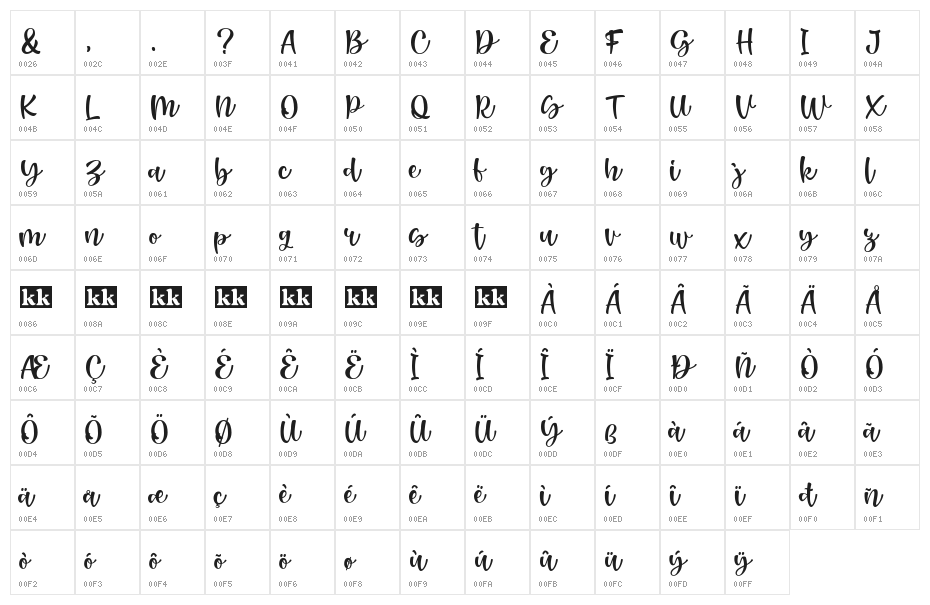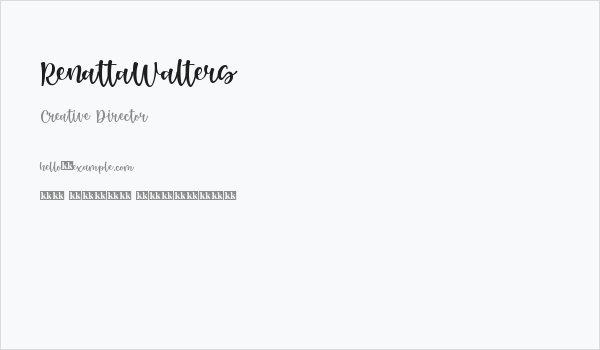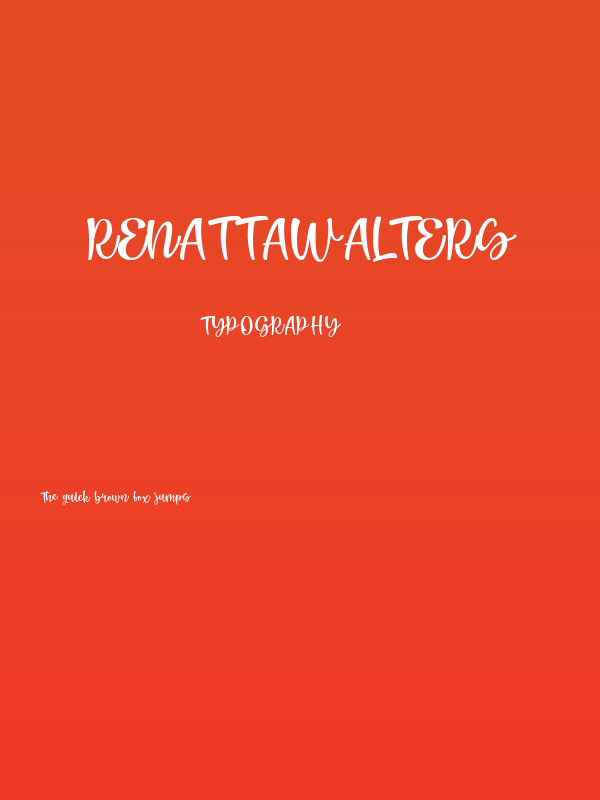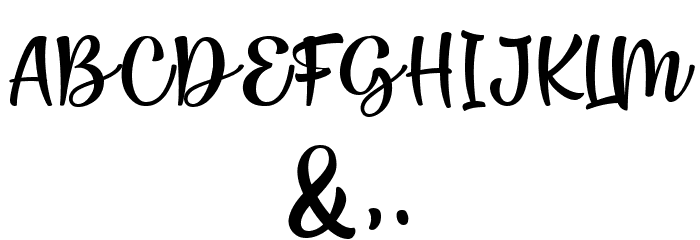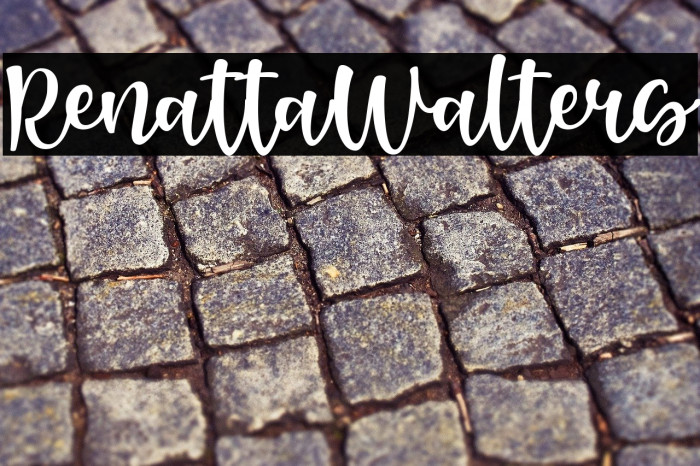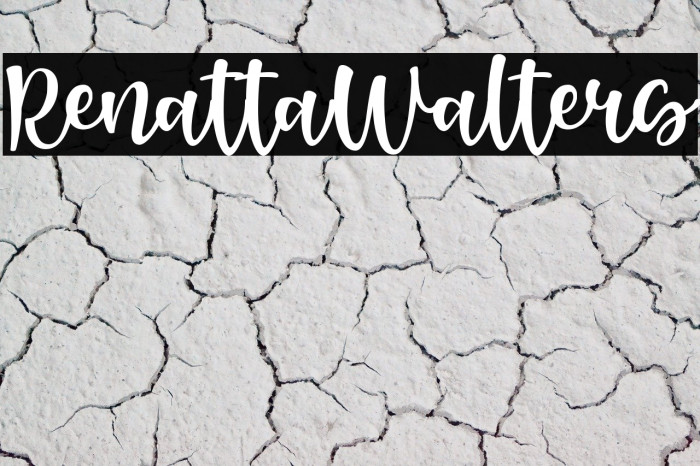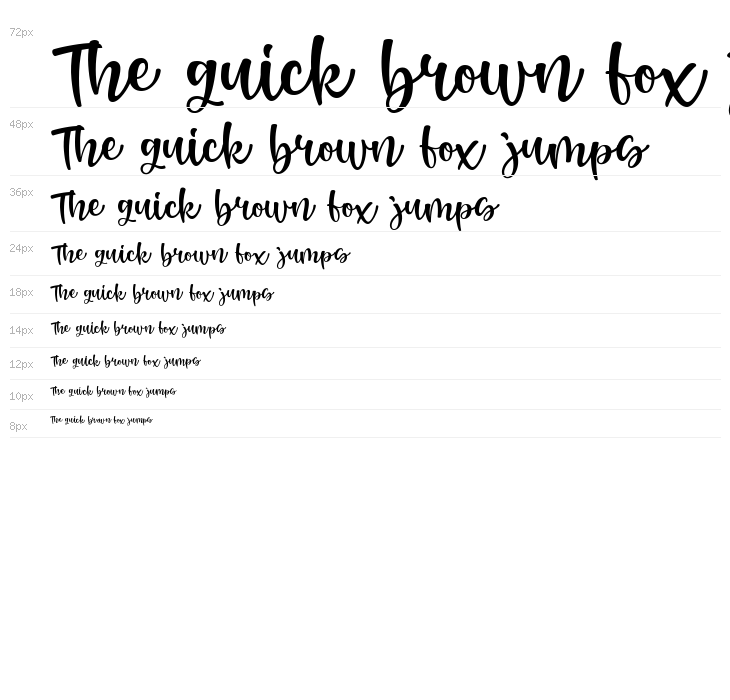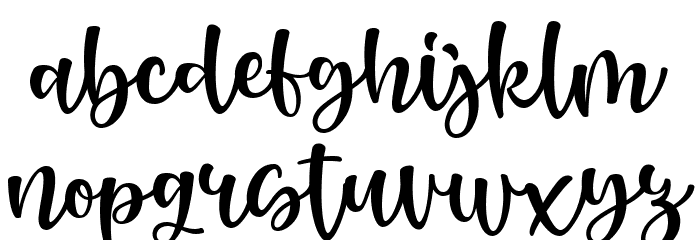
RenattaWalters Font
RenattaWalters Description
This font features a playful and flowing script style, characterized by its bold and smooth curves. The letters are interconnected, creating a sense of continuity and elegance. The uppercase letters are slightly larger and more pronounced, while the lowercase letters maintain a consistent flow with gentle loops and swirls. The overall appearance is both modern and whimsical, making it suitable for creative and artistic projects. The font's boldness ensures readability while adding a touch of flair to any design.
| Use Case | Logos, Headlines, Decorative text |
| Proposed Projects | Ideal for wedding invitations, greeting cards, branding, and social media graphics. |